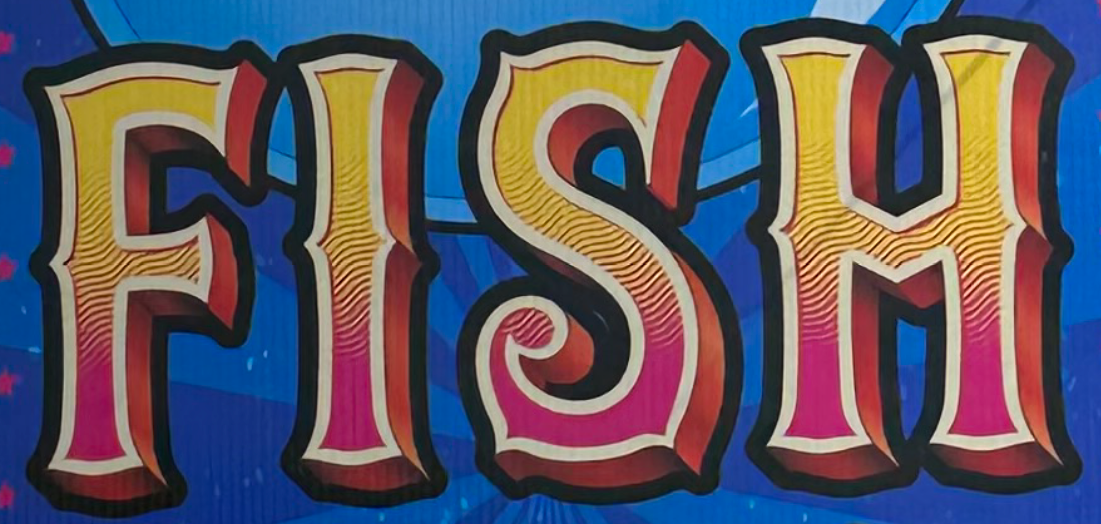
Can anyone point me in the right direction for this font? If it is even a font? I am striking out.
So that looks like it is graffiti, so more than likely you won't be able to match it to an actual font. You will have to outline the letters yourself to recreate them.
Probably not graffiti unless the graffiti enthusiast is also an accomplished sign painter. This looks very much like some LHF offering.
Barry McGee fits that description perfectly lol. There are tons of people who do graffiti, that could have painted that. You'd be surprised what people can do with spray paint as their medium.
I was afraid it wasnt a font. Unfortunately I dont need any of those letters for this project. Client just liked that font/style and gave it to me as a example.
It looks like to me that is a Saloon old type style font..I would check in the western catagories of some of the free font sites like dafont.com or fontsquirrel.com
obviously is has had multiple outlines and gradient and distortion done so whatever you find you would have to do those changes yourself